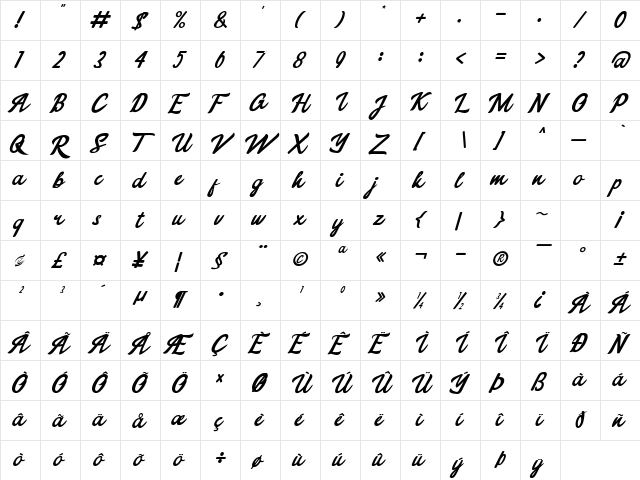
Cindy Julia Italic
Design Context for Cindy Julia Typeface
Cindy Julia is a composed and adaptable typeface that performs quietly and consistently across a wide range of design contexts. The dynamic lean of this cut emphasises speed and emphasis in any layout.
Pro Tip: Use Cindy Julia for emphasis, pull quotes, and subheadings where its slanted energy can add rhythm to the layout.